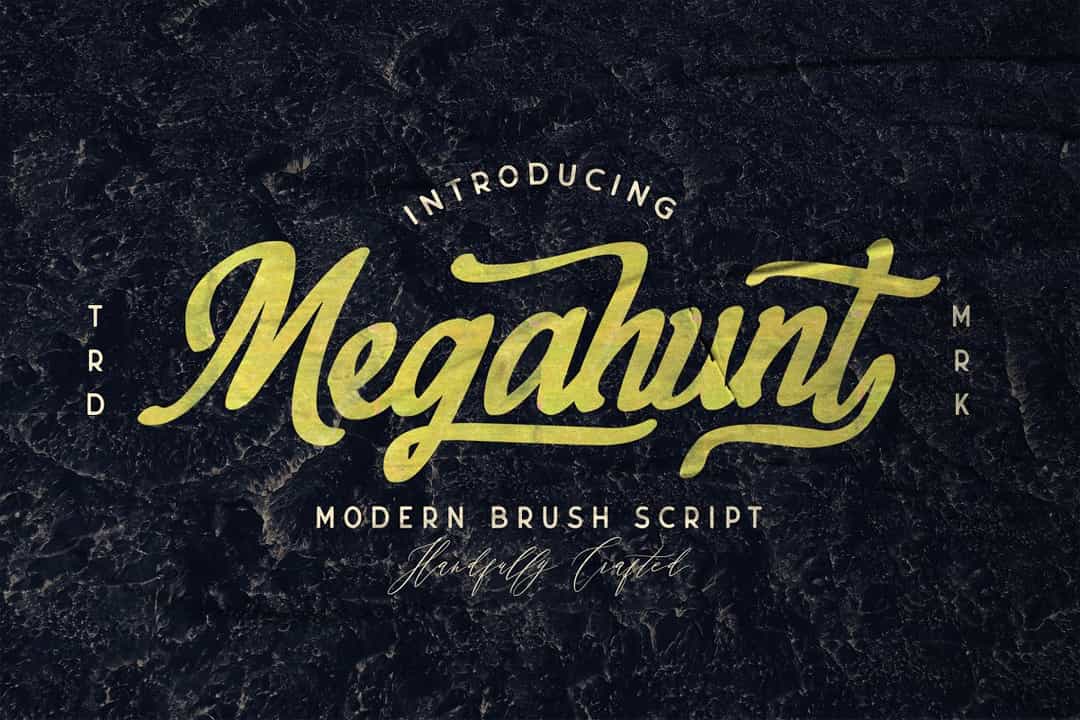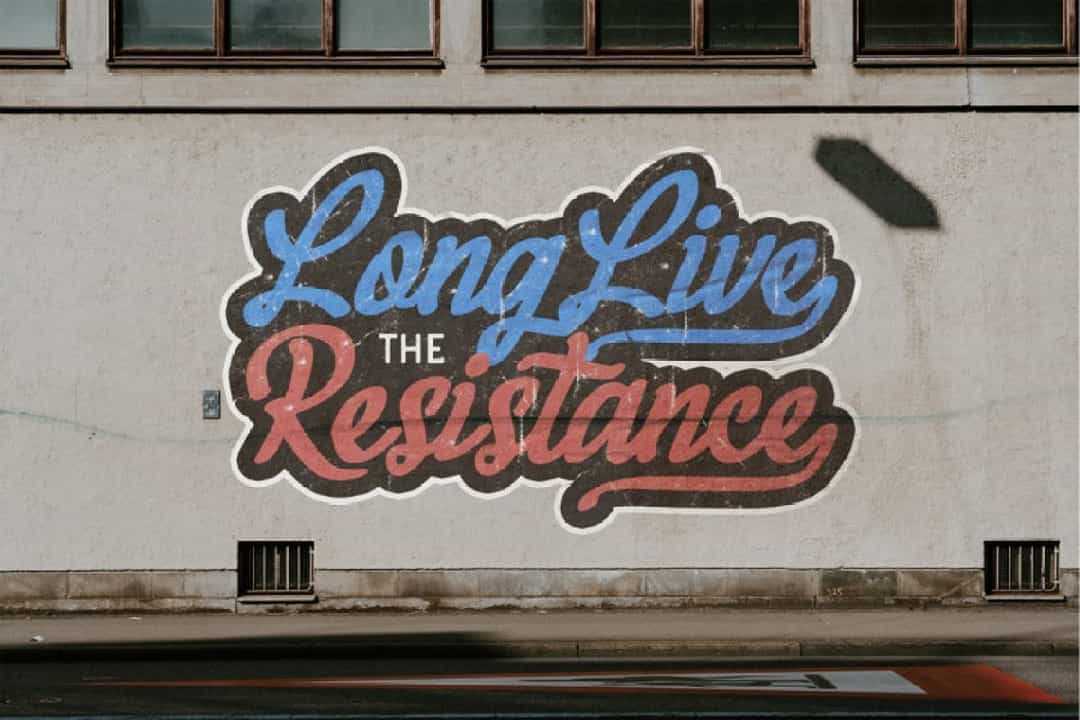
Megahunt is a script font featuring a Modern Brush Style. Megahunt is a font with digital brush strokes make this font appear authentic. Megahunt comes with lowercase and uppercase letters numerals, punctuation marks, and numerals. numerous variations of every character.